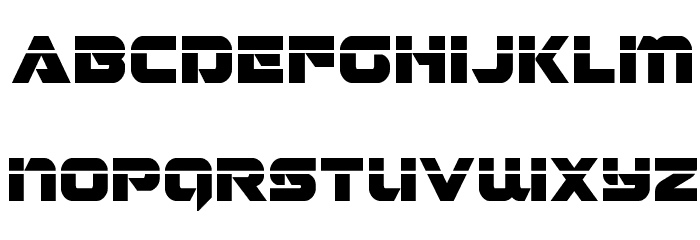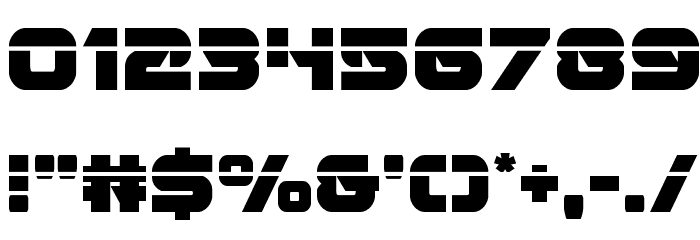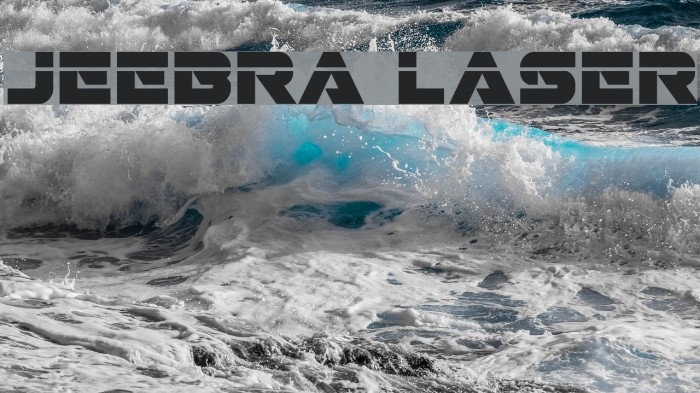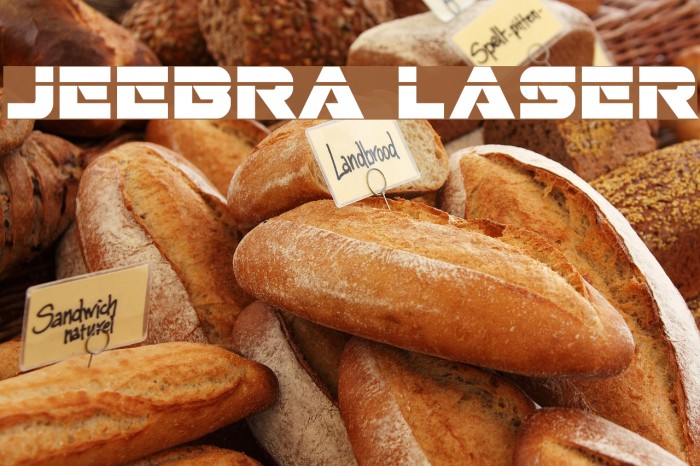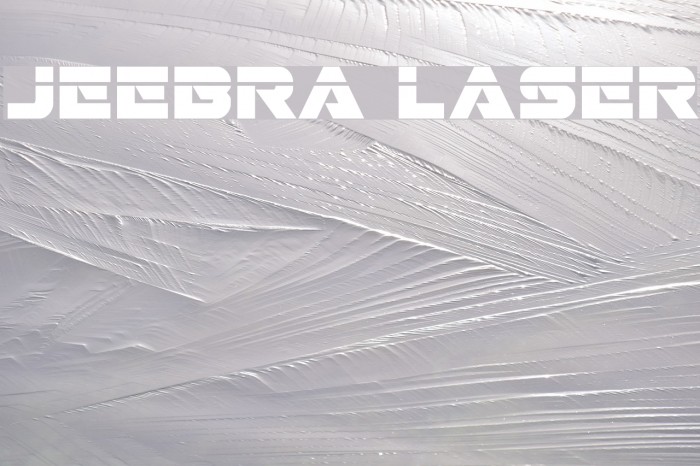
Jeebra Laser Font
This font features a bold, futuristic design with geometric shapes and sharp angles. The characters are constructed with solid, block-like forms that give a sense of strength and modernity. The uppercase and lowercase letters maintain a consistent style, with unique cutouts and angular details that add a dynamic and edgy feel. The numbers and special characters follow the same design principles, ensuring uniformity across all elements. This font is ideal for projects that require a strong visual impact and a contemporary aesthetic.
A bold, futuristic font with geometric shapes and sharp angles.
- Proposed Projects: Ideal for sci-fi themed designs, technology branding, video game titles, and modern posters.